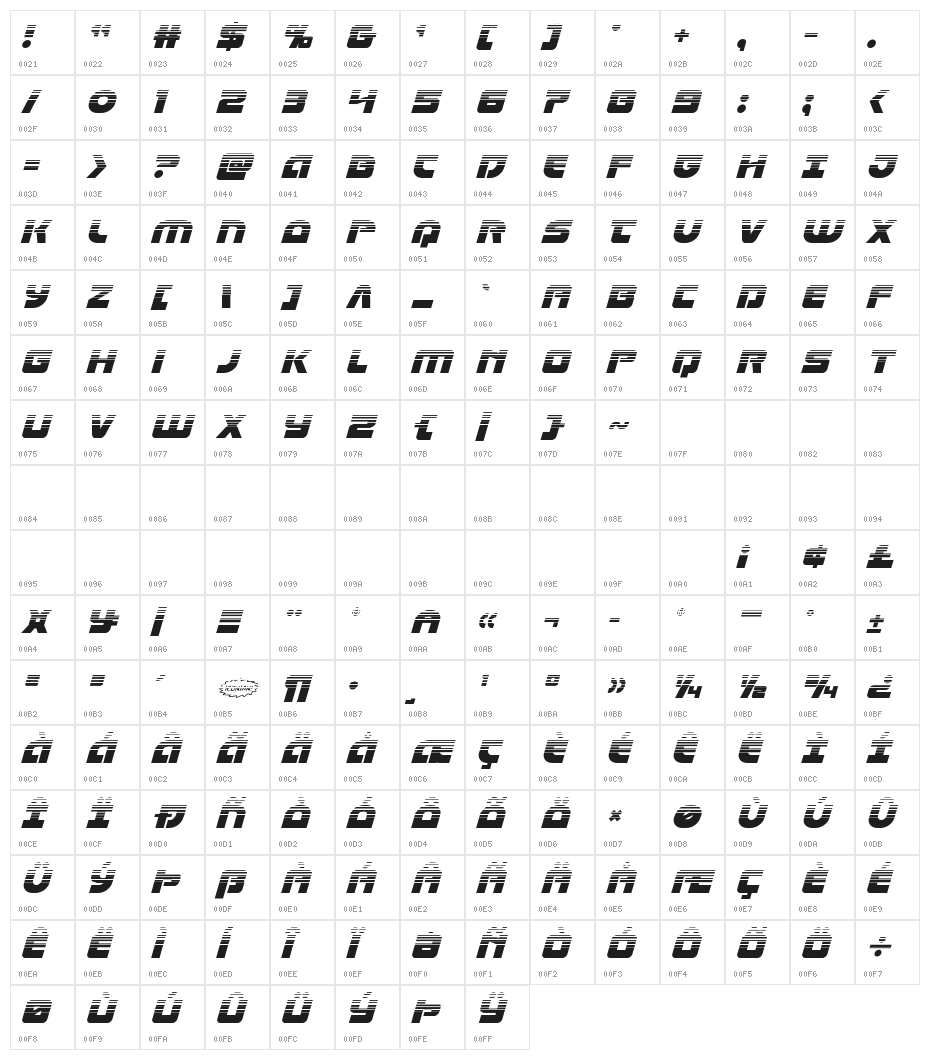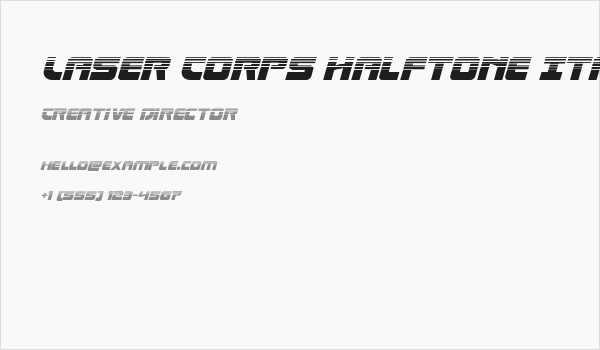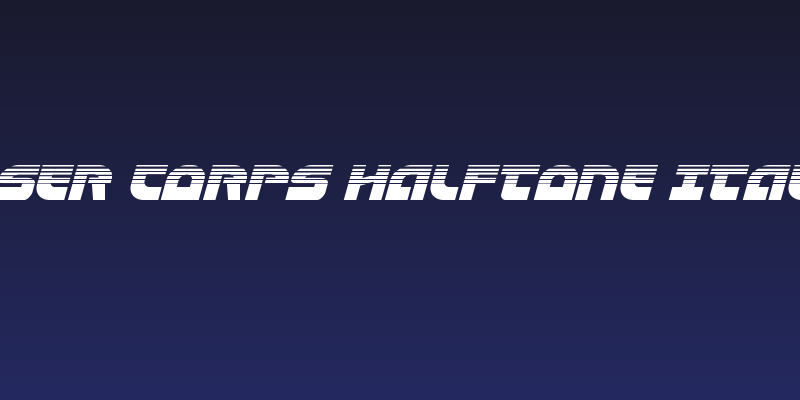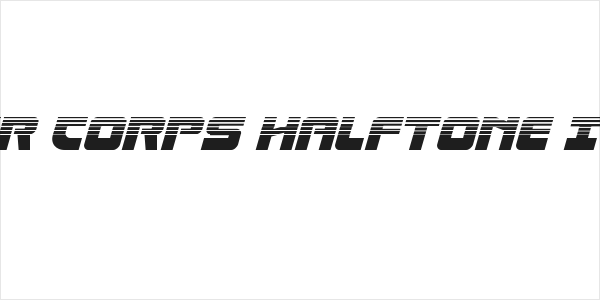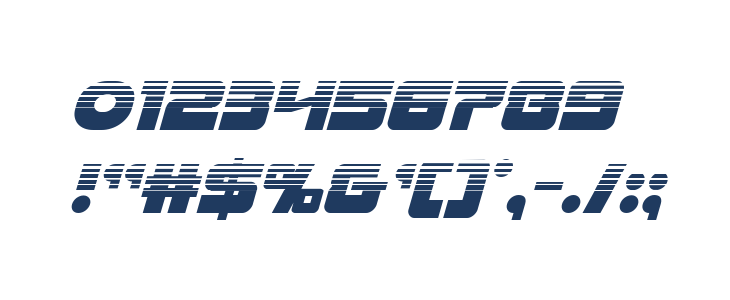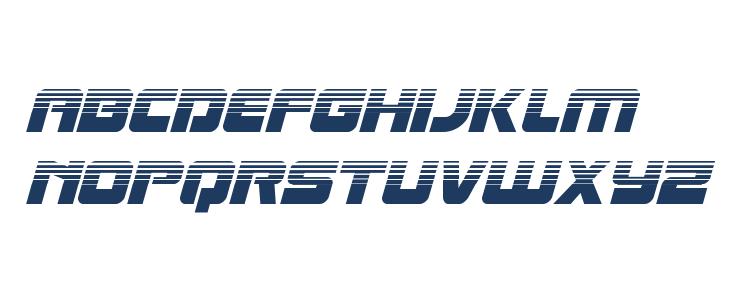
Laser Corps Halftone Italic Font
Laser Corps Halftone Italic Description
This font features a bold and futuristic design with a distinct halftone effect that gives it a dynamic, high-tech appearance. The characters are italicized, adding a sense of motion and speed. The uppercase and lowercase letters maintain a consistent style, with sharp angles and a geometric structure. The numbers and special characters follow the same design principles, ensuring uniformity across all glyphs. The horizontal lines within each character create a unique texture, enhancing the font's modern and digital aesthetic.
| Proposed Projects | Ideal for sci-fi themed projects, tech branding, video game titles, and futuristic posters. |